Looking for the best Google Fonts for your website?
Google Fonts collects a wealth of amazing fonts that you can use on your WordPress website for free.
But because there are so many options, you might be overwhelmed with finding the best Google Fonts for blogging and content creation.
To help, we’ve collected 20 of our favorite options. Then, after we share the list, we’ll tell you exactly how you can start using these fonts on your WordPress site and offer some resources to help you pair your fonts.
The best Google Fonts for blogging and website content
You can find and buy fonts from various designers online. Google Fonts is a library from the folks at Google that offers free web typography for all who need it.
Almost 1,000 font families are available at the time of this article, and that number always seems to grow. Each font family provides additional styles and sizes.
Before Google Fonts, you either had to buy fonts or stick with what was given to you in a design platform. Google Fonts offers quick implementation of the fonts and they’re free.
So, what are the best Google Fonts to choose from?
Below, we’ll highlight favorite fonts based on the Google Fonts download analytics. Some personal preferences will be included, but overall, we want to make this as objective as possible.
1. Roboto
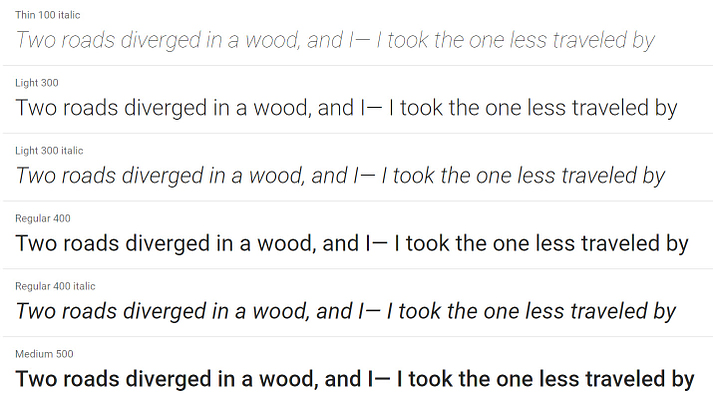
Roboto is by far the most downloaded and installed Google Font. The reason for that is because it has a geometric, yet friendly, design to it. It creates a natural, smooth reading environment and provides the professionalism that most writing needs.
2. Merriweather
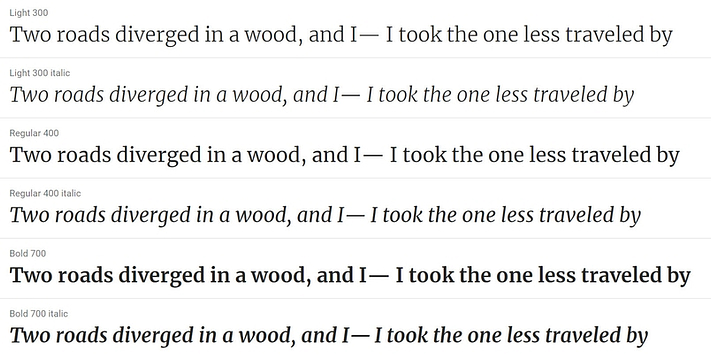
Merriweather is a serif font with the sole purpose of being easy to read on screens.
3. Lobster
The Lobster font delivers a dynamic and display-friendly font with a unique focus on offering multiple variations of each letter. You don’t have to choose the variations. Rather, the best ones are selected based on the context of the surrounding letters.
4. Indie Flower
As the most popular handwriting font from Google, the Indie Flower option is bolder than other handwriting fonts, and it offers a carefree, smooth read.
5. Inconsolata
A monospace font provides letters that all take up the same amount of horizontal space. In other words, the letters are the same width. Inconsolata, like other monospace fonts, provides a “coder” look. It reads well on the screen and is popular in the technology world.
6. Open Sans
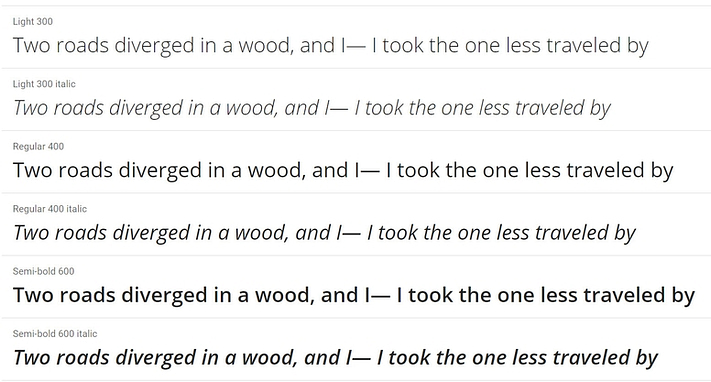
Open Sans focuses on neutrality and friendliness, allowing for its use in almost any format, from print media to internet publications.
7. Oswald
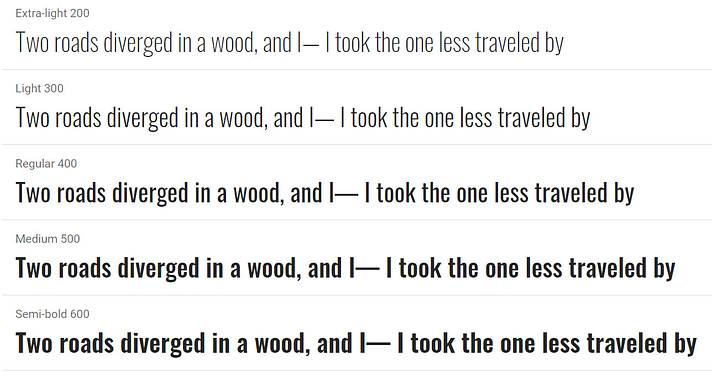
Using sans-serif and Alternative Gothic stylings, the Oswald font presents a reshaping of older fonts for the digital world.
8. Raleway
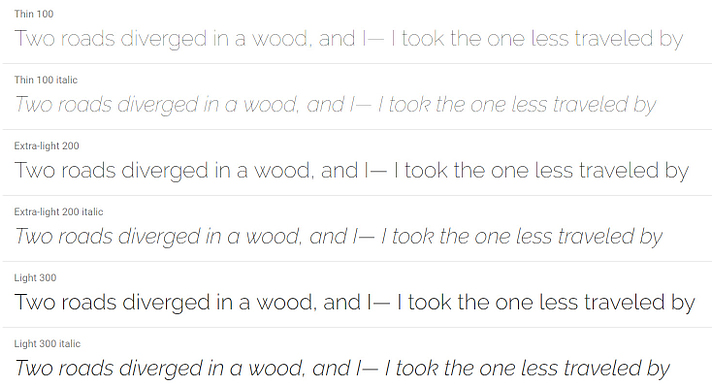
Raleway has an elegant design, using a sans-serif structure with a thin weight.
9. Playfair Display
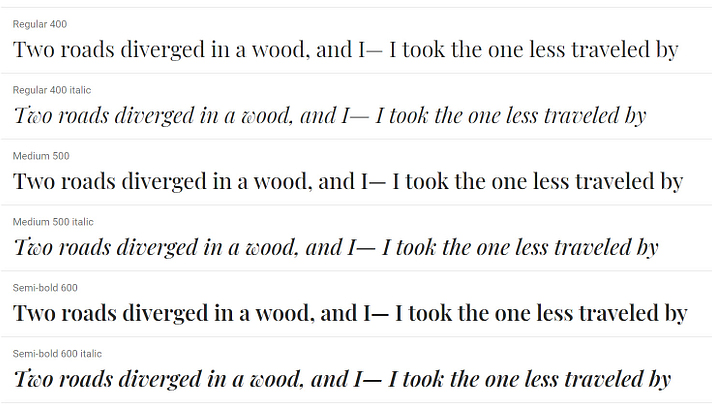
Playfair Display features a modernized version of past fonts that mimicked the styling of ink pens.
10. Lora
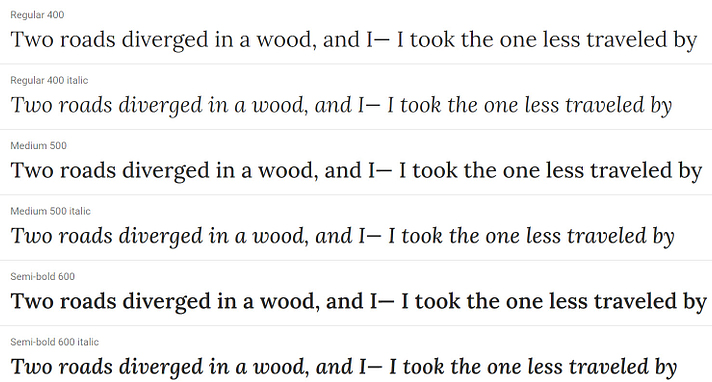
This serif font includes brushed curves and contrasts to generate a memorable, artistic feel, best used for paragraphs.
11. Slabo
Slabo is part of a collection of developed fonts made specifically for the internet, particularly online advertisements.
12. Nunito
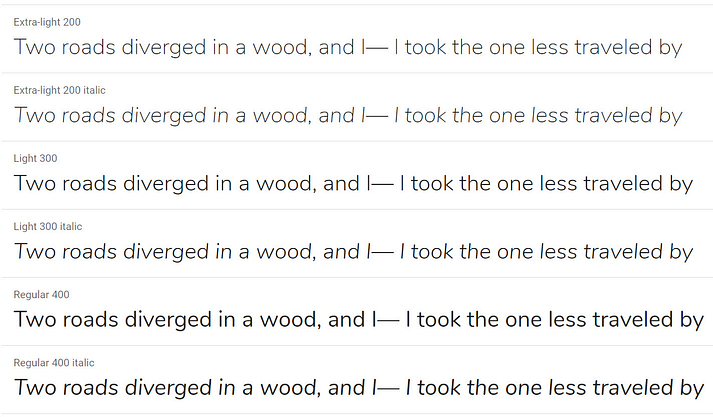
Consider Nunito if you’re looking for a sans-serif font with rounded edges.
13. Titillium Web
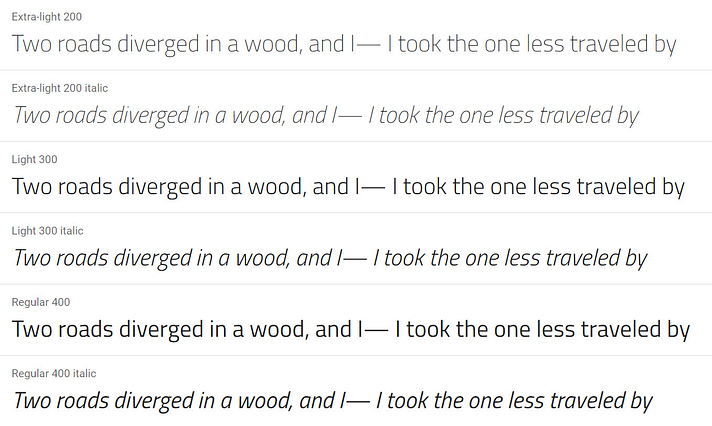
Design students are tasked with creating new versions of Titillium Web every year. It’s part of a beautiful collection of web-ready fonts.
14. Mukta
Both contemporary and versatile, the Mukta font is a rendition of classic Indian scripts made for the modern age of web publishing. We like it for creative works.
15. Dosis
The Dosis font is a rounded sans-serif option that emotes a casual, contemporary feel.
16. Amiri
Pulling from classic Arabic fonts, Amiri’s purpose is for books and longer paragraphs.
17. Anton
Anton is a sans-serif font that’s too bold for many uses, but it’s great for advertising.
18. Dancing Script
Try out Dancing Script for a spontaneous, bouncing look in online journals or blogs.
19. Exo 2
Exo 2 is a sans-serif that combines futuristic boldness and classic elegance.
20. Teko
Teko grabs attention when being utilized in both online and print headlines.